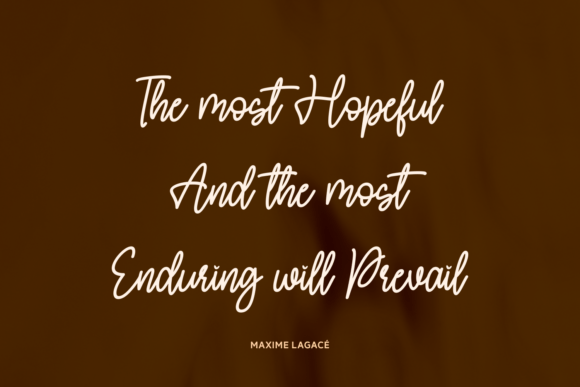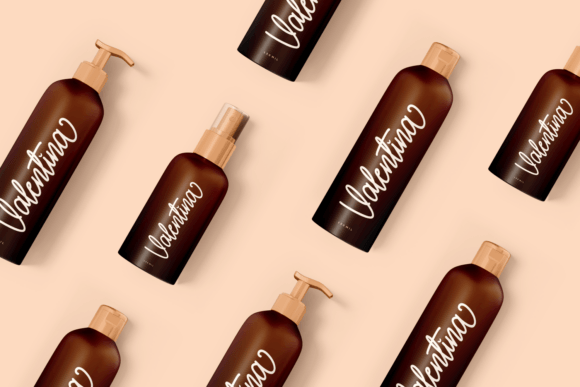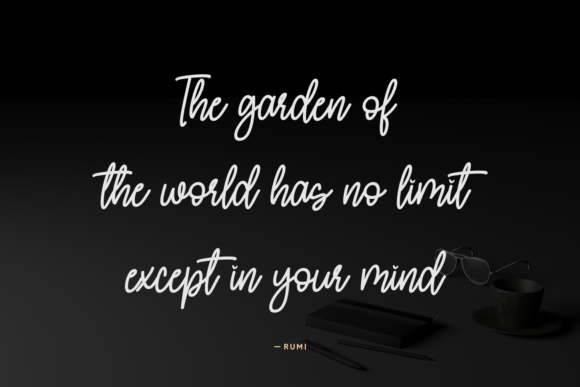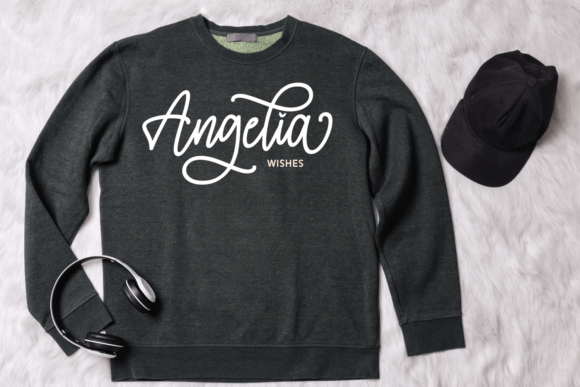
Introduction to Emilysa Font
Do you remember the thrill of finding the perfect font for a creative project? The one that elevates your design from good to great? For many designers, this moment is a game-changer. It’s the moment when all the elements come together, and the project takes on a life of its own. And that’s exactly what happens when you discover the beautiful Emilysa Font.
With its elegant, flowing letters and luxurious feel, Emilysa Font is the perfect addition to any design. Whether you’re creating an invitation, logo, or simply want to add a touch of sophistication to your project, this high-quality font is sure to impress. And the best part? You can download it for free, making it a valuable resource for designers of all levels.
Key Features of Emilysa Font
- Emilysa Font includes a wide range of characters, including uppercase and lowercase letters, numbers, and punctuation marks.
- Unique, hand-drawn style with a transparent background, ideal for designers looking for a creative and eye-catching font.
- Perfect for designers working on creative projects, such as branding, advertising, and digital art, where a unique and stylish font is essential.
Honest Review: Emilysa Font
I recently stumbled upon the Emilysa Font, a beautiful and elegant script font that caught my attention. As a designer, I was excited to see how it would perform in my creative projects.
- High-quality design: The Emilysa Font has a professional and refined look, making it perfect for any creative project.
- Transparent background: The font’s transparent background allows for easy combination with other design elements.
Overall, the Emilysa Font is a great addition to any design library. Its elegant script style and high-quality design make it an excellent choice for any creative project.
- Limited font weights: The font only comes in a few weights, which may limit its use in certain design projects.
- No extensive language support: The font may not support a wide range of languages, which could be a limitation for designers working on multilingual projects.
Despite its limitations, the Emilysa Font is a great design resource that is sure to impress. Its elegant design and high-quality look make it a valuable addition to any designer’s toolkit.
Emilysa Font
The Emilysa Font is a high-quality design resource perfect for creative projects requiring a unique and elegant touch. It features a transparent background, making it ideal for various design applications.
Using Emilysa Font in Creative Projects
Tips for Getting the Most Out of Emilysa Font
Use the Emilysa Font in combination with other design elements, such as images and graphics, to create visually appealing designs. Experiment with different font sizes, colors, and styles to find the perfect look for your creative project.
The Emilysa Font is suitable for various design applications, including:
Business cards and brochures
Website headers and footers
Social media graphics and posts
By following these steps and tips, you can unlock the full potential of the Emilysa Font and create stunning designs for your creative projects.